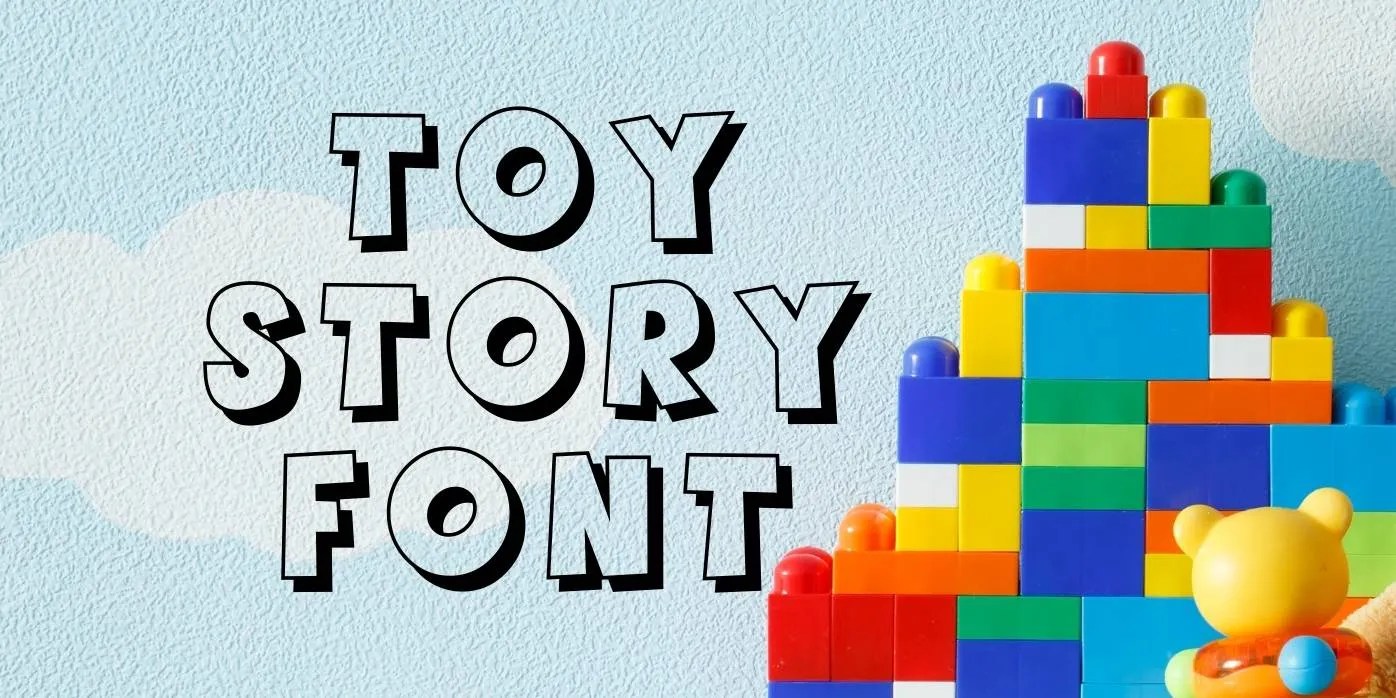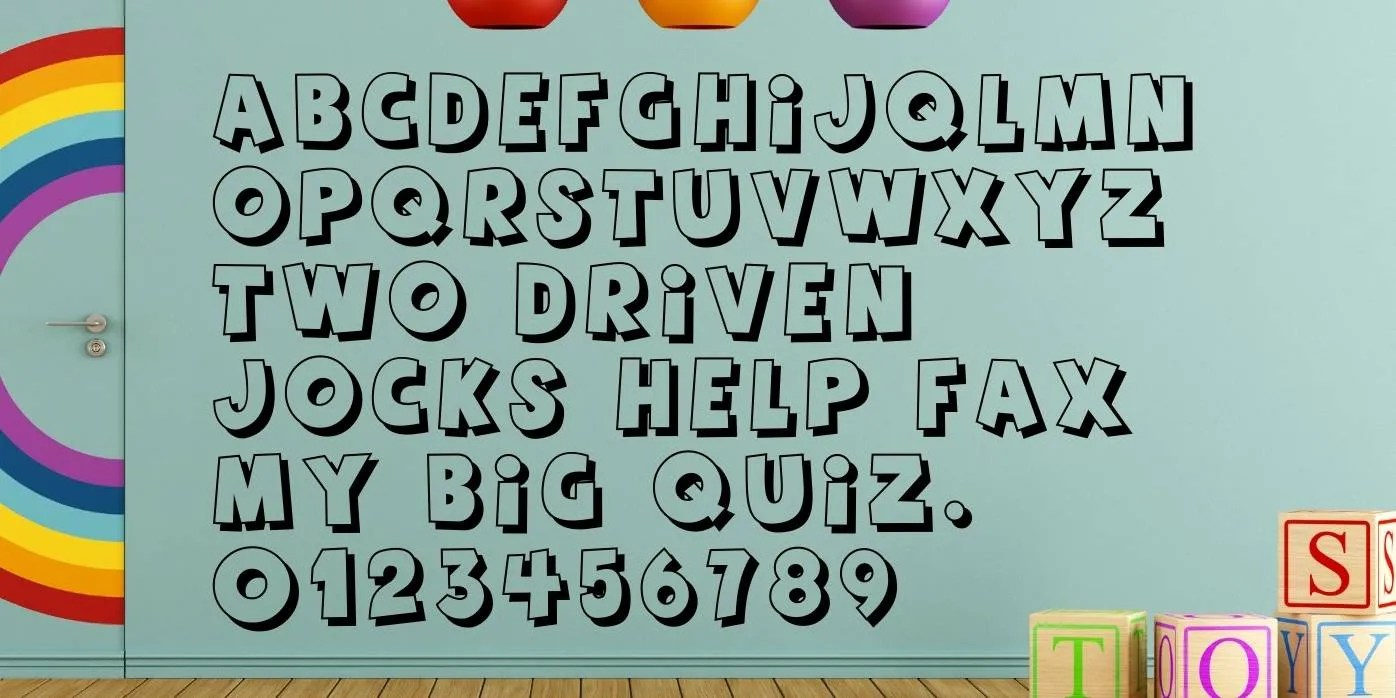
Toy Story Free Font Download . Toy story font is a customized unique disney sans serif typeface, and this font is good for making stationery and creative design. Create text graphics with toy story font online and download them for free. We are providing toy story font here for free that includes free font, movie fonts, cartoon fonts, peace sans font, logo font, & sans serif font. We’re here to offer you the classic toy story font free of charge. If you’re making a design and want to use this iconic font in your picture than look no further. Download the toy story font for free. Find out the fonts used in the toy story logo and movie titles, and download them for free. Learn about the fonts used in the toy story logo and how to get them. Learn how to install them on your computer and customize them with a font preview tool. Introducing toy story font is a logo font, font in use in a movie called toystory. Font in logo toy story is. Today we present the toy story typeface from walt disney’s 1995 american adventure film toy story, released november 19, 1995, has become one of the highest.
Learn about the fonts used in the toy story logo and how to get them. We’re here to offer you the classic toy story font free of charge. Find out the fonts used in the toy story logo and movie titles, and download them for free. Introducing toy story font is a logo font, font in use in a movie called toystory. Toy story font is a customized unique disney sans serif typeface, and this font is good for making stationery and creative design. Today we present the toy story typeface from walt disney’s 1995 american adventure film toy story, released november 19, 1995, has become one of the highest. We are providing toy story font here for free that includes free font, movie fonts, cartoon fonts, peace sans font, logo font, & sans serif font. Learn how to install them on your computer and customize them with a font preview tool. Download the toy story font for free. Font in logo toy story is.
Toy Story Font Free Click To Find The Best 2 Free Fonts In The Toy Toy Story Free Font Download Toy story font is a customized unique disney sans serif typeface, and this font is good for making stationery and creative design. Create text graphics with toy story font online and download them for free. Find out the fonts used in the toy story logo and movie titles, and download them for free. We are providing toy story font here. Toy Story Free Font Download.
Story Text Yellow Font Clip Art Toy Story 3 Font Free Download, HD Toy Story Free Font Download Learn how to install them on your computer and customize them with a font preview tool. Today we present the toy story typeface from walt disney’s 1995 american adventure film toy story, released november 19, 1995, has become one of the highest. Introducing toy story font is a logo font, font in use in a movie called toystory. Find out. Toy Story Free Font Download.
Toy Story Font Free Download Toy story font, Toy story, Toy story Toy Story Free Font Download Font in logo toy story is. Learn about the fonts used in the toy story logo and how to get them. Introducing toy story font is a logo font, font in use in a movie called toystory. Today we present the toy story typeface from walt disney’s 1995 american adventure film toy story, released november 19, 1995, has become one. Toy Story Free Font Download.
Toy Story Font Svg, Toy Story Alphabet Svg, Toy Story Letter Inspire Toy Story Free Font Download We’re here to offer you the classic toy story font free of charge. Find out the fonts used in the toy story logo and movie titles, and download them for free. Learn how to install them on your computer and customize them with a font preview tool. Font in logo toy story is. Toy story font is a customized unique. Toy Story Free Font Download.
Andy Font SVG Toy Story letters svg Font for Cricut Toy Story Font SVG Toy Story Free Font Download Today we present the toy story typeface from walt disney’s 1995 american adventure film toy story, released november 19, 1995, has become one of the highest. Learn how to install them on your computer and customize them with a font preview tool. If you’re making a design and want to use this iconic font in your picture than look no. Toy Story Free Font Download.
Toy Story Logo Font Toy Story Free Font Download the toy story font for free. If you’re making a design and want to use this iconic font in your picture than look no further. Introducing toy story font is a logo font, font in use in a movie called toystory. We are providing toy story font here for free that includes free font, movie fonts, cartoon fonts, peace. Toy Story Free Font Download.